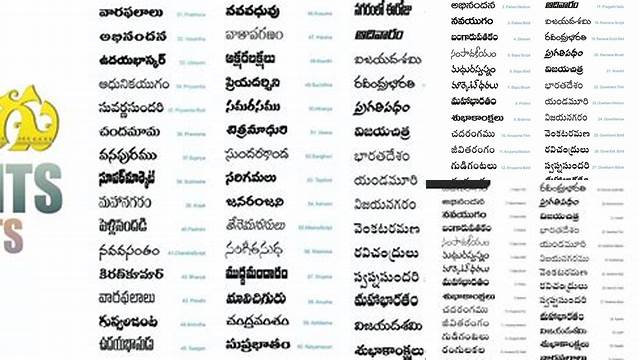
Anu Script Telugu Fonts: Your Ultimate Guide
What is Anu Script?
At its heart, Anu Script is a widely-used font family specifically designed for the Telugu language. Now, Telugu, as you might know, boasts a rich history and a beautiful, complex script. It's not just about the individual characters; it's about how they flow together, how they curve and connect to create a visually stunning and easily readable text. That's where Anu Script shines. It was crafted to capture the essence of traditional Telugu calligraphy while also being highly legible in digital formats. This means whether you're crafting a wedding invitation, designing a website, or composing an academic paper, Anu Script can lend an air of authenticity and elegance to your Telugu text. Think of it as the go-to font for anyone wanting to present Telugu in a clear, stylish, and culturally relevant way. The beauty of Anu Script lies in its versatility. It comes in various weights and styles, from the clean and crisp Anu Script Regular to the bold and impactful Anu Script Bold. This allows you to choose the perfect variation to suit your specific needs, whether you need a subtle touch for body text or a strong statement for headings. Furthermore, Anu Script has become somewhat of a standard in the Telugu-speaking digital world. Many organizations, institutions, and individuals rely on it for their documents and online content, making it a familiar and trusted choice for readers. By using Anu Script, you're not just choosing a font; you're choosing a font that resonates with a large audience and contributes to a cohesive and professional look for your Telugu text.
Why Choose Anu Script Telugu Fonts?
So, why should you specifically opt for Anu Script Telugu fonts when there are other Telugu fonts out there? There are several compelling reasons, guys! First and foremost, readability. Anu Script is meticulously designed with clear, well-defined characters, making it exceptionally easy to read, even at smaller sizes. This is crucial for ensuring your message is conveyed effectively and without any eye strain. Imagine trying to decipher a document with a poorly designed font – frustrating, right? Anu Script eliminates that hassle. Secondly, Anu Script offers versatility. It's not a one-size-fits-all font; it comes in multiple styles and weights, allowing you to adapt it to different contexts. Need a formal look for a professional report? Anu Script Regular is your friend. Want to grab attention with a headline? Anu Script Bold will do the trick. This adaptability makes it a valuable asset for various projects. Thirdly, Anu Script boasts widespread compatibility. It's a well-established font that's supported by most operating systems and software applications. This means you can confidently use it on Windows, macOS, Linux, and in programs like Microsoft Word, Adobe InDesign, and more, without worrying about compatibility issues. This widespread support saves you time and prevents frustrating formatting problems. Furthermore, Anu Script carries a certain cultural significance. It's recognized and respected as a standard Telugu font, lending your text an air of authenticity and professionalism. Using Anu Script demonstrates a respect for the language and its traditions, which can be particularly important in formal or cultural contexts. Finally, Anu Script is often freely available. Many sources offer free downloads of Anu Script, making it an accessible option for anyone, regardless of their budget. This affordability, combined with its other benefits, makes it a highly attractive choice for both personal and professional use. Ultimately, choosing Anu Script Telugu fonts is a smart decision for anyone who values readability, versatility, compatibility, cultural relevance, and affordability. It's a reliable and well-designed font that will enhance the quality and impact of your Telugu text.